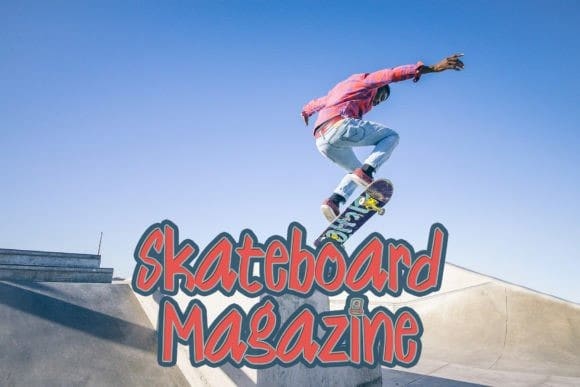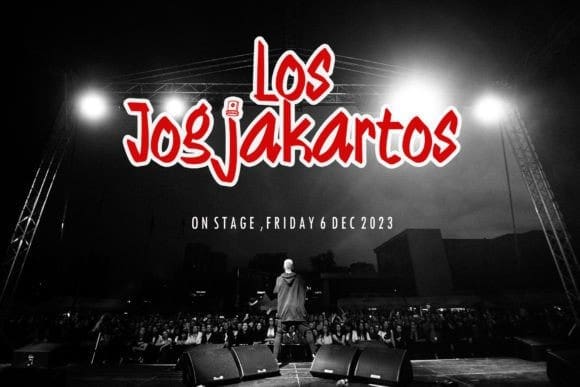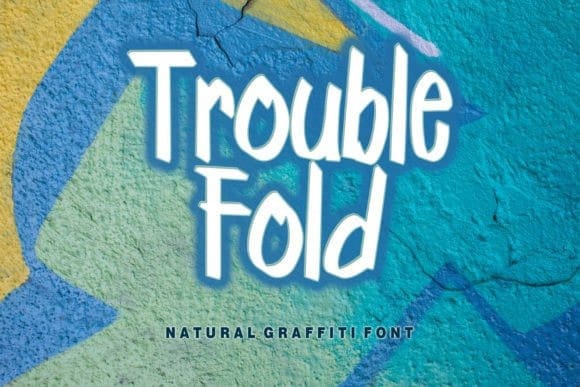
Trouble Fold Font
Trouble Fold Font is a unique Handwritten font with a graffiti style. It will elevate a wide range of design projects be it branding, headings, wedding designs, invitations, signatures, logotypes, wall art illustrations, apparel, labels, and much more!